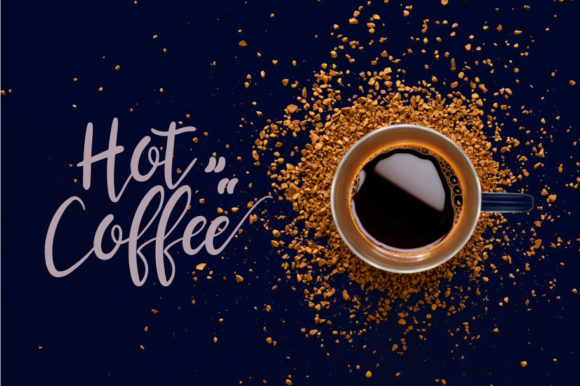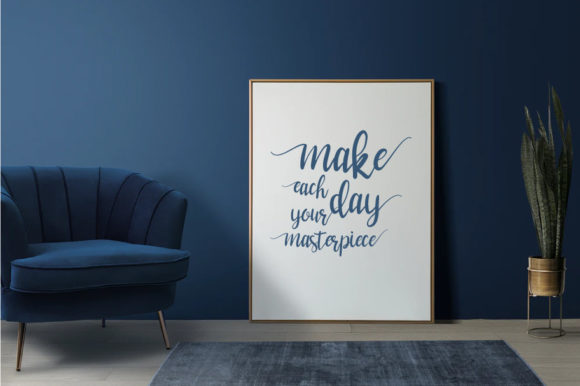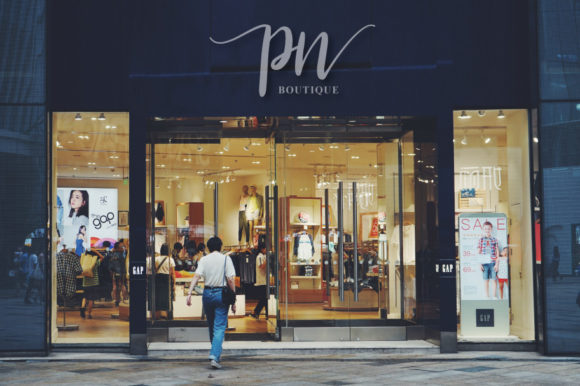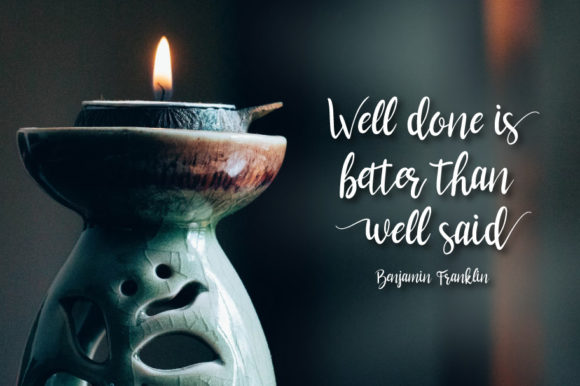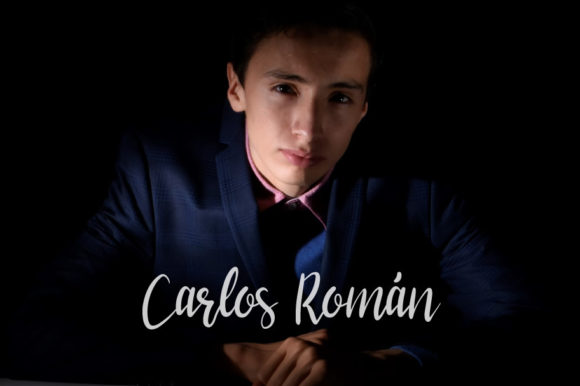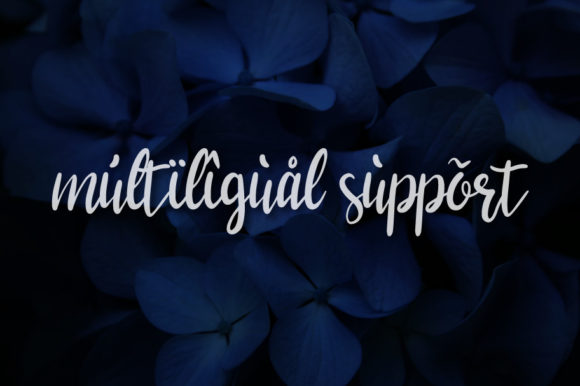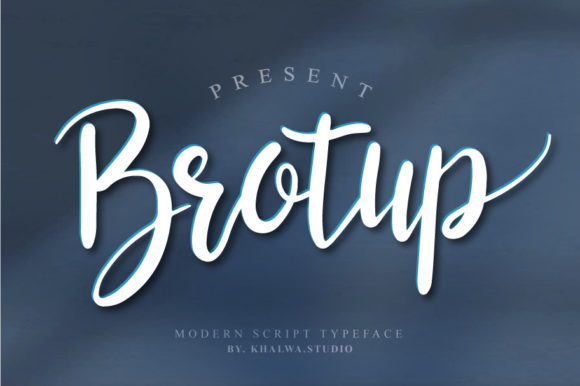
Brotup Font: Elevate Your Designs with a Timeless Handwritten Style
In the world of typography, a well-chosen font can make all the difference in creating visually stunning designs. For designers and crafters looking for a font that exudes elegance and sophistication, Brotup Font is an excellent choice. This lovely and timeless handwritten font is perfect for creating eye-catching logos, branding, and quotes that leave a lasting impression.
The Unique Charm of Brotup Font
What sets Brotup Font apart from other fonts is its unique and beautiful touch. Every letter has been carefully crafted to give your designs a personal and human feel. The font’s handwritten style is reminiscent of traditional calligraphy, yet it has a modern twist that makes it perfect for contemporary designs. Whether you’re creating a logo, branding materials, or social media graphics, Brotup Font is sure to add a touch of elegance and sophistication.
Brotup Font is PUA (Private Use Area) encoded, which means that you can access all of the glyphs and swashes with ease. This feature makes it easy to customize your designs and add a personal touch. With PUA encoding, you can easily access alternative characters, ligatures, and swashes to create unique and eye-catching designs.
Brotup Font is a versatile font that is perfect for designers and crafters alike. Whether you’re creating digital designs or handmade crafts, this font is sure to inspire your creativity. Here are just a few ways you can use Brotup Font:
• Create eye-catching logos and branding materials for your business or personal projects.
• Design beautiful quotes and social media graphics that showcase your favorite inspirational sayings.
• Add a personal touch to your handmade crafts, such as cards, scrapbook pages, and journal entries.
• Use Brotup Font to create stunning digital art, such as illustrations and mixed media designs.
Tips for Using Brotup Font
To get the most out of Brotup Font, here are a few tips to keep in mind:
• Experiment with different font sizes and colors to add depth and interest to your designs.
• Use the font’s swashes and glyphs to add a personal touch to your designs.
• Combine Brotup Font with other fonts to create unique and eye-catching designs.
• Don’t be afraid to get creative and try new things – Brotup Font is a versatile font that can be used in a variety of ways.
In conclusion, Brotup Font is a timeless and elegant handwritten font that is perfect for designers and crafters looking to add a touch of sophistication to their designs. With its unique and beautiful touch, PUA encoding, and versatility, Brotup Font is sure to become a favorite in your design arsenal. So why wait? Download Brotup Font today and start creating stunning designs that showcase your creativity and style.
• What is Brotup Font? Brotup Font is a lovely and timeless handwritten font that is perfect for creating eye-catching logos, branding, and quotes.
• Is Brotup Font PUA encoded? Yes, Brotup Font is PUA encoded, which means that you can access all of the glyphs and swashes with ease.